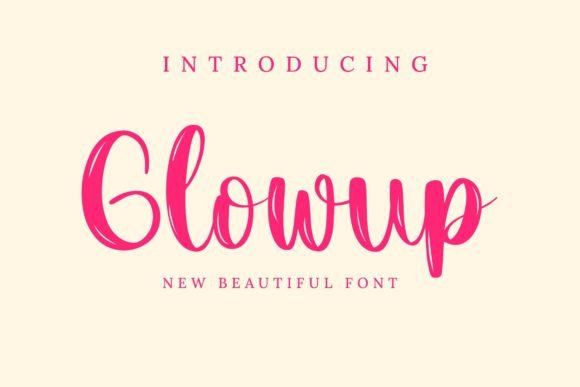
Introducing Glowup Font: The Sweet and Friendly Handwritten Script Font
In the world of typography, fonts play a crucial role in conveying emotions and setting the tone for creative projects. Among the numerous fonts available, Glowup font stands out as a sweet and friendly handwritten script font that radiates warmth and approachability. Its charming letterforms, adorned with gentle curves, capture the essence of genuine friendliness, making it an ideal choice for projects seeking a personal and inviting touch.
The Characteristics of Glowup Font
Glowup font boasts a unique set of characteristics that make it a standout in the world of typography. Some of its key features include:
- Handwritten script style: Glowup font is a handwritten script font that exudes a sense of warmth and personality.
- Gentle curves: The font’s letterforms are adorned with gentle curves that give it a friendly and approachable feel.
- Charming letterforms: Each letterform in the Glowup font is carefully crafted to convey a sense of friendliness and warmth.
- Personal and inviting touch: The font’s unique style makes it perfect for projects that require a personal and inviting touch.
The Benefits of Using Glowup Font
Using Glowup font in your creative projects can have numerous benefits. Some of the advantages of using this font include:
- Emotional connection: The font’s friendly and approachable style helps create an emotional connection with the reader.
- Unique identity: Glowup font gives your project a unique identity that sets it apart from others.
- Versatility: The font is versatile and can be used in a variety of projects, from branding and advertising to packaging and digital media.
- Easy to read: Despite its decorative nature, Glowup font is easy to read, making it perfect for body text and headlines.
How to Use Glowup Font in Your Projects
Using Glowup font in your projects is easy. Here are some tips to get you started:
- Branding and advertising: Use Glowup font in your branding and advertising materials to create a friendly and approachable image.
- Digital media: Use the font in your digital media projects, such as social media graphics, blog posts, and email newsletters.
- Packaging: Use Glowup font on packaging materials to give your products a personal and inviting touch.
- Pair it with other fonts: Experiment with pairing Glowup font with other fonts to create a unique and visually appealing typography.
The Design Process Behind Glowup Font
The design process behind Glowup font involved careful consideration of several factors, including:
- Legibility: The font’s designer aimed to create a font that is easy to read, despite its decorative nature.
- Uniqueness: The designer sought to create a font that stands out from others in the same category.
- Emotional connection: The designer aimed to create a font that creates an emotional connection with the reader.
Tips for Getting the Most Out of Glowup Font
Here are some tips for getting the most out of Glowup font:
- Use it consistently: Use Glowup font consistently across all your marketing materials to create a cohesive brand image.
- Experiment with colors: Experiment with different colors to find the perfect combination that works with Glowup font.
- Pair it with images: Pair Glowup font with images that complement its friendly and approachable style.
In conclusion, Glowup font is a sweet and friendly handwritten script font that radiates warmth and approachability. Its charming letterforms, adorned with gentle curves, capture the essence of genuine friendliness, making it an ideal choice for projects seeking a personal and inviting touch. With its unique characteristics, benefits, and versatility, Glowup font is sure to add a delightful and heartfelt flourish to your creative expressions.
- What is Glowup font?: Glowup font is a sweet and friendly handwritten script font that radiates warmth and approachability.
- What are the key features of Glowup font?: The font’s key features include a handwritten script style, gentle curves, charming letterforms, and a personal and inviting touch.
- What are the benefits of using Glowup font?: The benefits of using Glowup font include creating an emotional connection with the reader, giving your project a unique identity, versatility, and ease of reading.